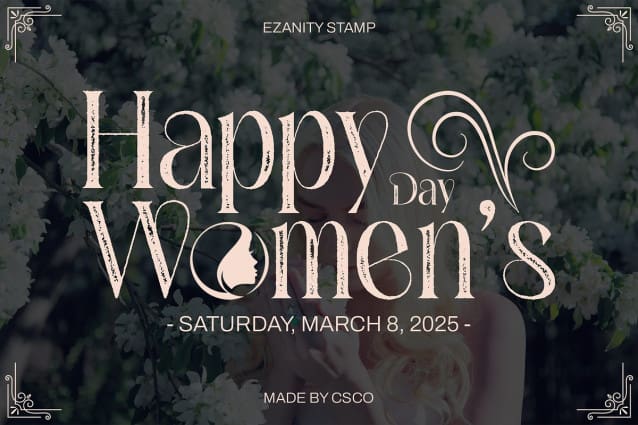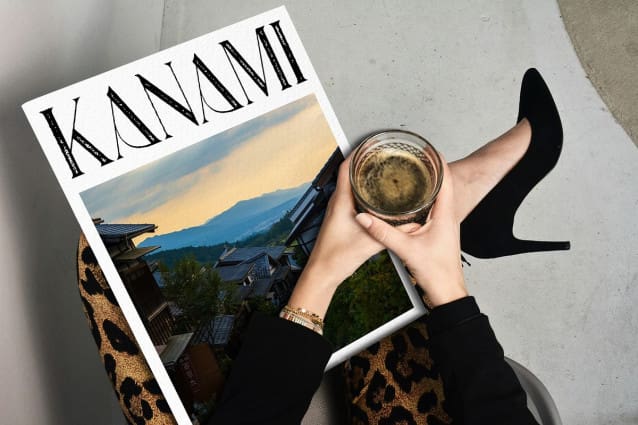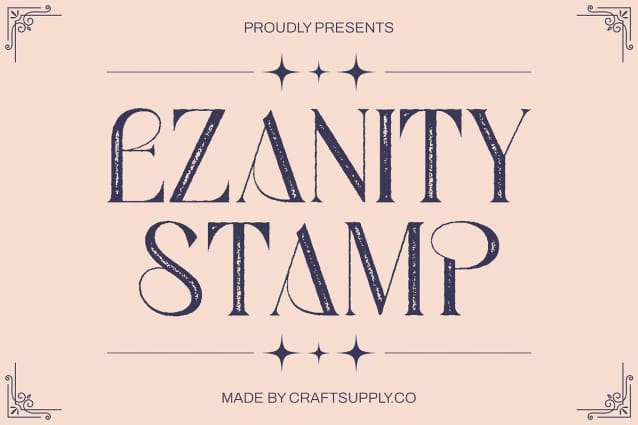
Ezanity Stamp Font
Ezanity Stamp Font is a modern serif font that beautifully captures the elegance of the Art Nouveau style. Featuring smooth, flowing curves and intricate ornamentation, this font draws inspiration from early 20th-century decorative design, offering a sophisticated and artistic beauty that enhances any project.
Distinctive Grunge Touch with Stamp Effect The addition of a stamp effect introduces a unique grunge touch, creating a striking contrast between the refined Art Nouveau design and a bold, textured appearance. This rugged detailing adds a modern edge to the font, blending classic luxury with contemporary grit.
Perfect for Elegant and Unique Projects Ideal for design projects that demand a blend of elegance and distinctive character, Ezanity Stamp is perfect for high-end branding, artistic editorial layouts, and stylish promotional materials. Its fusion of classic sophistication with a grungy texture makes it versatile for creating standout visuals.
Elevate Your Design with Timeless and Modern Charm Transform your projects with Ezanity Stamp, where the grace of Art Nouveau meets the raw appeal of a stamp effect. This font provides a unique combination of refined elegance and modern ruggedness, making it a compelling choice for designs that need to merge beauty with distinctive flair.